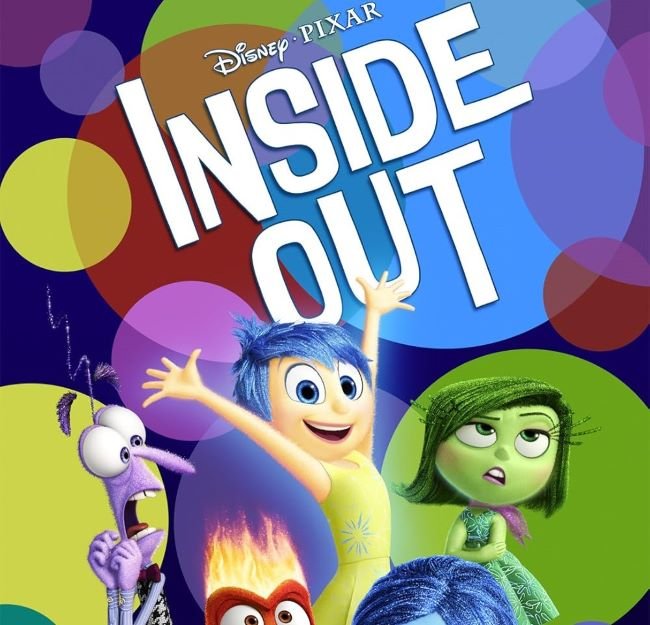
Inside Out font bounces onto the screen with the same irrepressible energy as Joy herself — rounded, bold, and radiating a cheerfulness so intense it becomes genuinely moving once the film earns the right to complicate it. Pixar’s 2015 masterpiece demanded title lettering that could represent the full spectrum of emotional color its story explores: the typography needed to feel simultaneously fun and emotionally intelligent, accessible to children and resonant for adults who had forgotten that growing up involves losing things as well as gaining them. Two alternatives approach this warm, rounded display energy: Alternative 1 and Alternative 2.